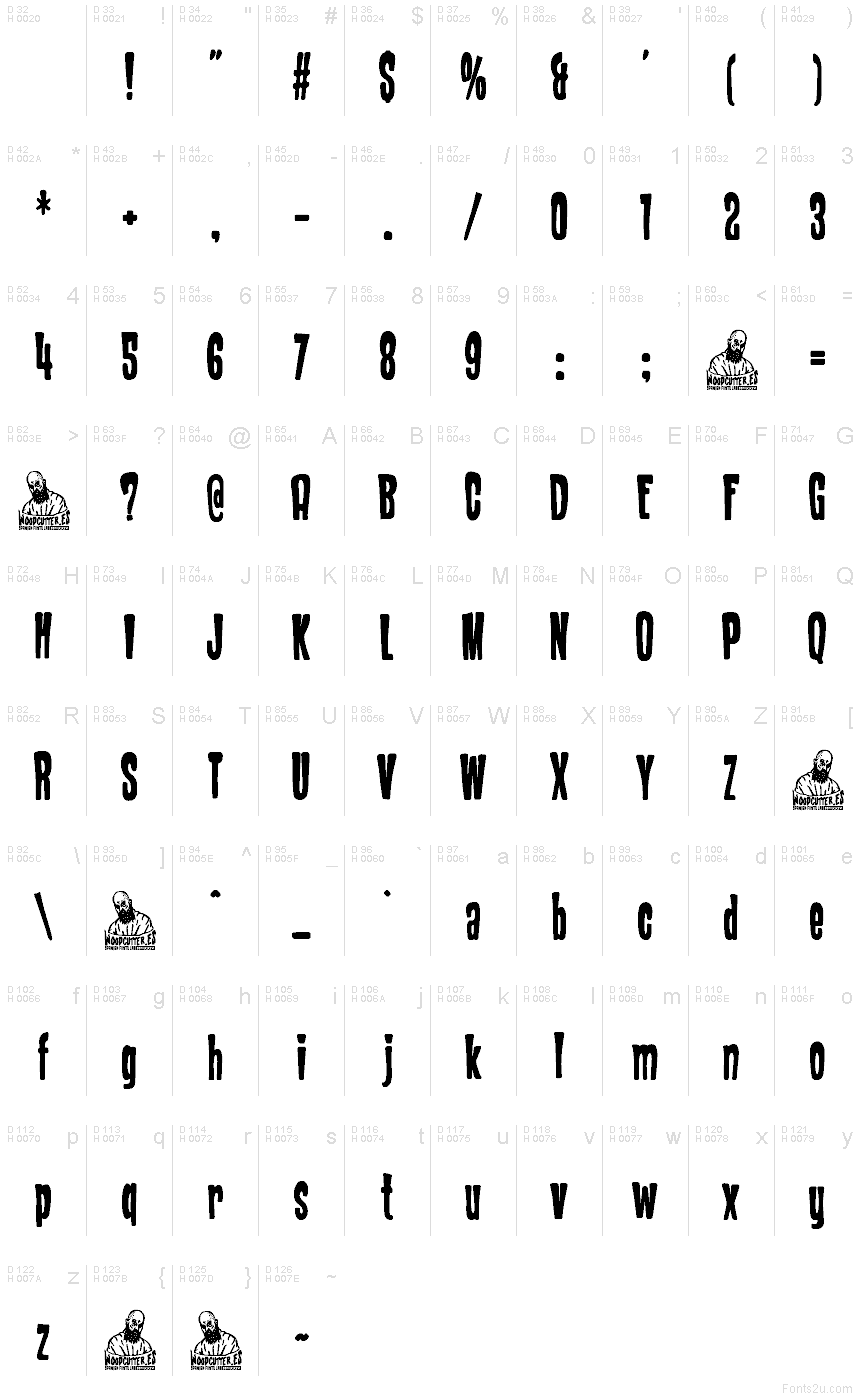
The Island Resort
The Island Resort font by Woodcutter is a display font that captures the groovy era’s laid-back appeal. The design of this condensed style revolves around smooth curves and a modern, contemporary appearance with its flowing letters. It features an irregular texture adding more to its casual vibe, making it suitable for various types of lighthearted projects.